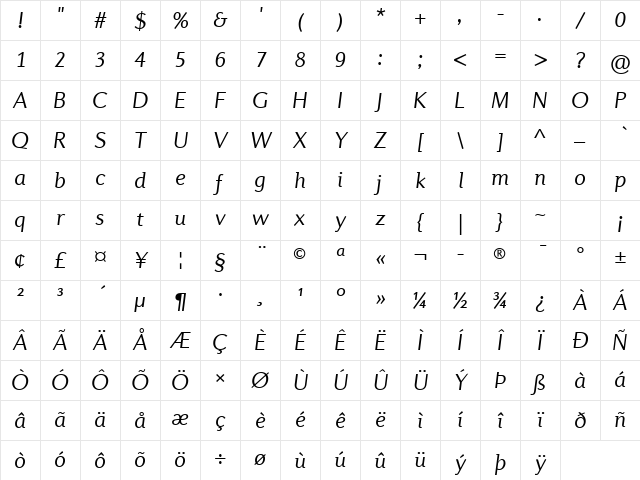
Diverda Sans Com Light Italic
Designer: Daniel Lanz
Design Context for Diverda Sans Com
Diverda Sans Com is a composed and adaptable typeface that performs quietly and consistently across a wide range of design contexts. The slanted form adds forward momentum and visual energy. Its slender proportions lend an understated elegance to any composition.
Pro Tip: Use Diverda Sans Com for emphasis, pull quotes, and subheadings where its slanted energy can add rhythm to the layout.